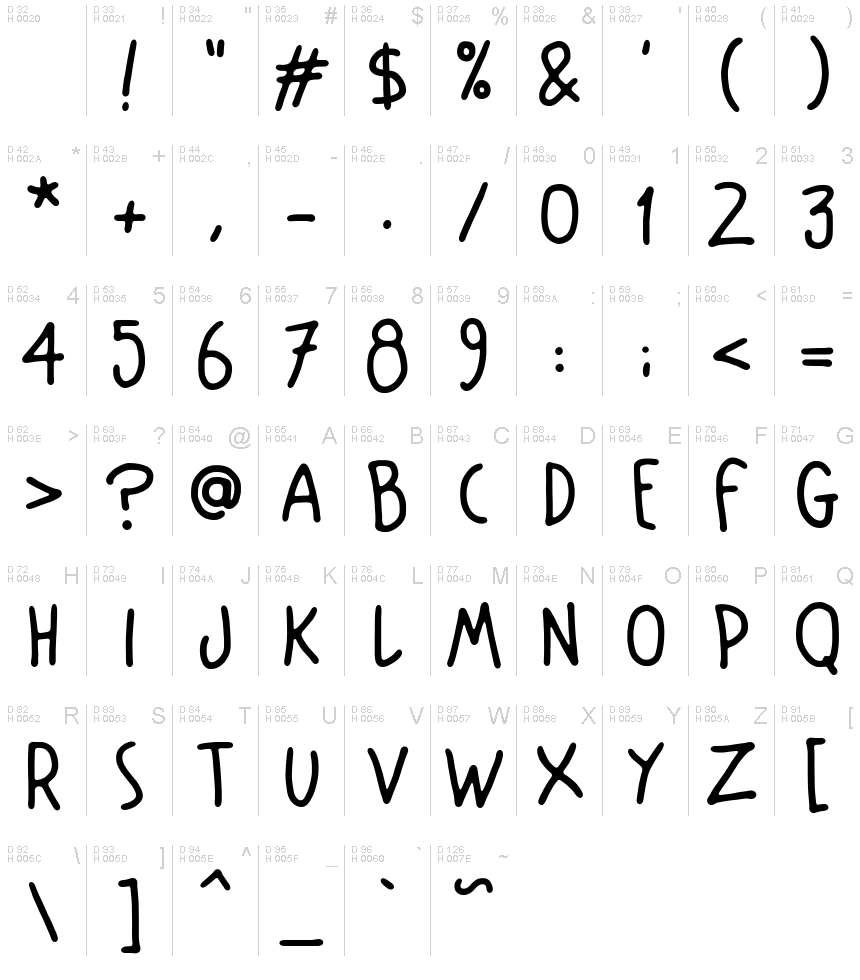
Mango Slice
Mango Slice, a captivating handwritten font crafted by Imagex, exudes a delightful blend of playfulness and elegance. Its condensed width lends a distinctive flair, while the organic, flowing strokes create a sense of warmth and approachability. Mango Slice's unique character shines through, inviting users to embrace its charming personality and incorporate it into a variety of design projects.
This versatile font excels in settings where a personal, handcrafted touch is desired, such as branding, packaging, editorial design, and promotional materials. Its expressive quality and condensed structure make it an excellent choice for designs requiring a compact yet impactful typographic presence. Mango Slice's adaptability allows it to seamlessly transition between whimsical, modern, and sophisticated design aesthetics, making it a valuable addition to any creative toolkit.